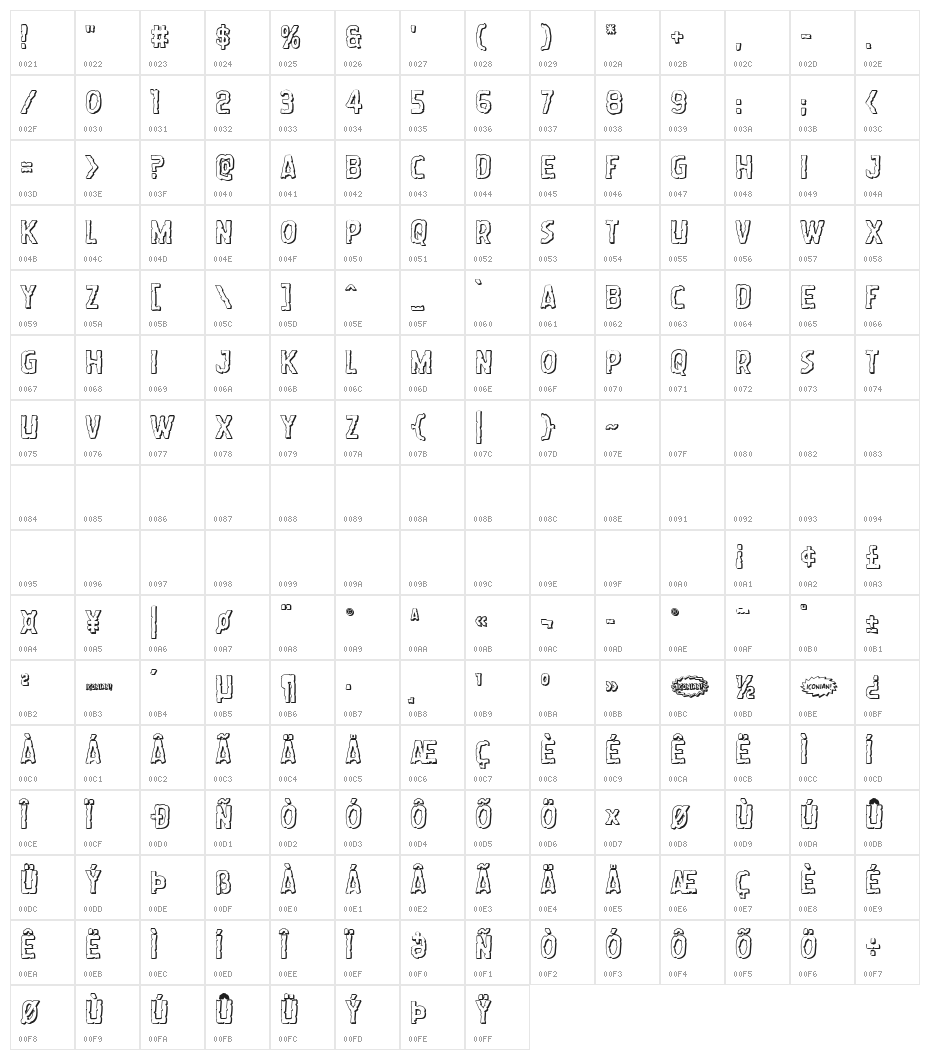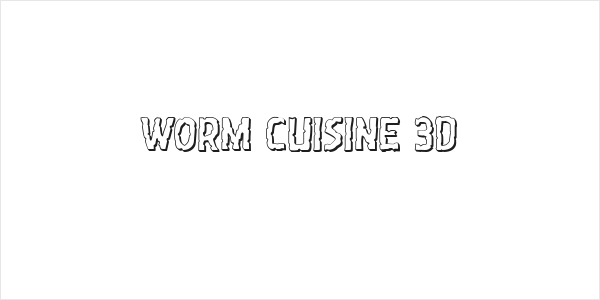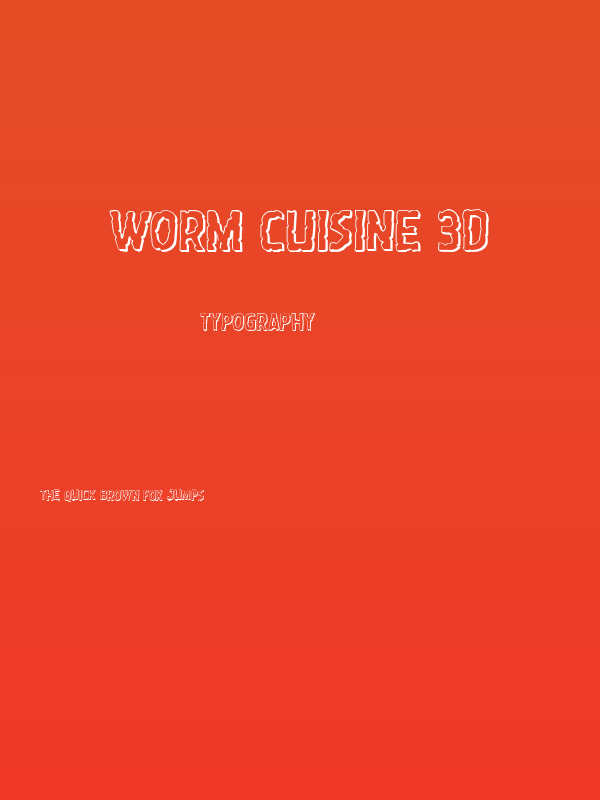
Worm Cuisine 3D Font
Worm Cuisine 3D Description
This font features a playful and quirky design with a 3D effect that gives each character a worm-like appearance. The letters are bold and outlined, creating a sense of depth and texture. The irregular, wavy edges add a dynamic and fun element, making it stand out as a decorative choice. The uppercase and lowercase letters maintain a consistent style, while the numbers and special characters complement the overall theme. This font is perfect for projects that require a unique and eye-catching look.
Proposed ProjectsIdeal for children's books, playful branding, event posters, and creative packaging designs.